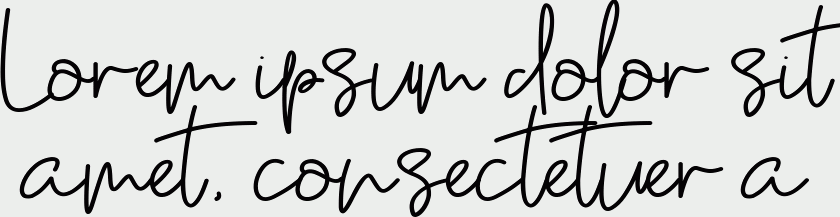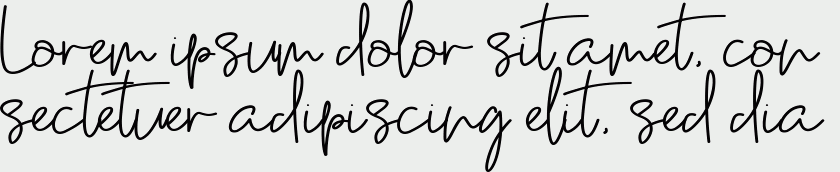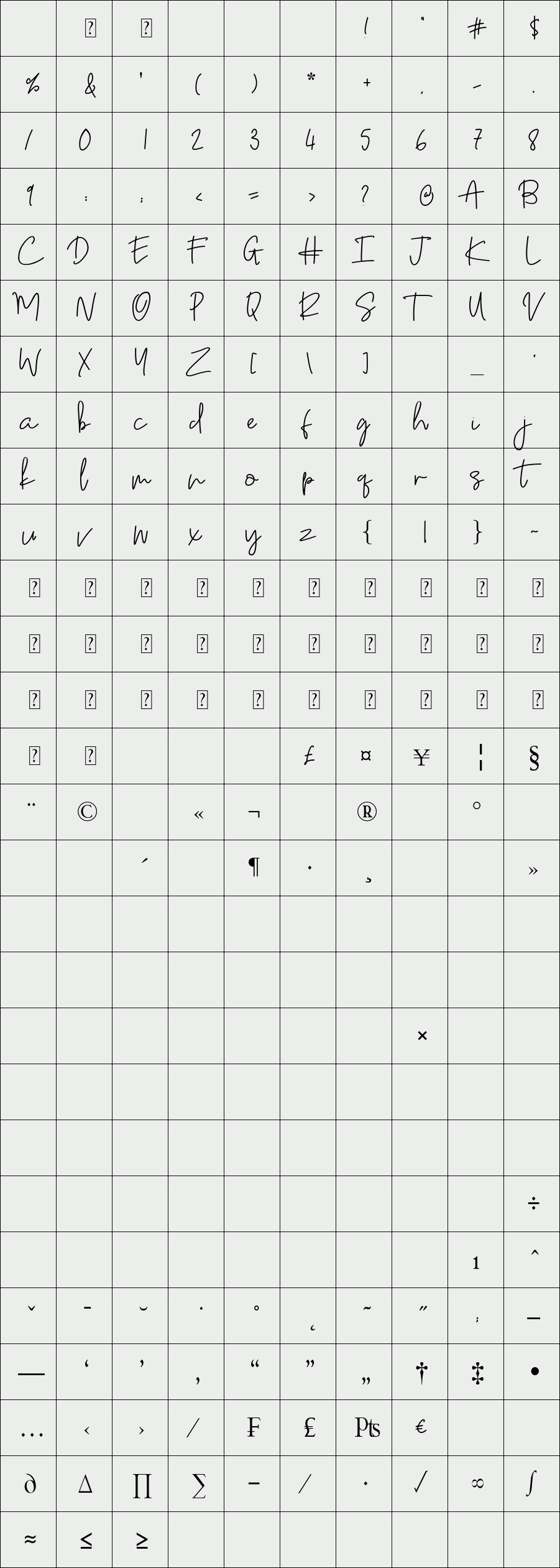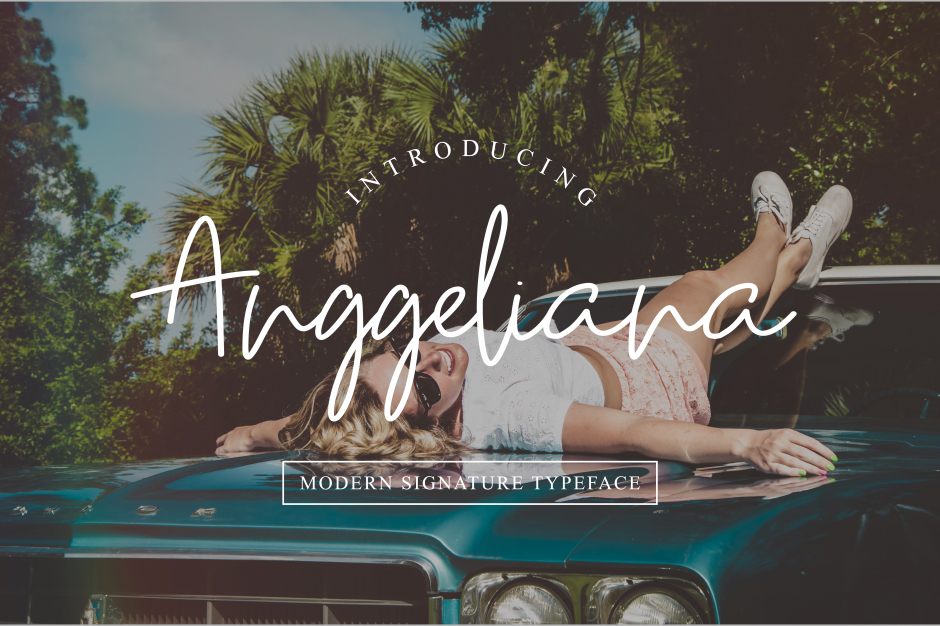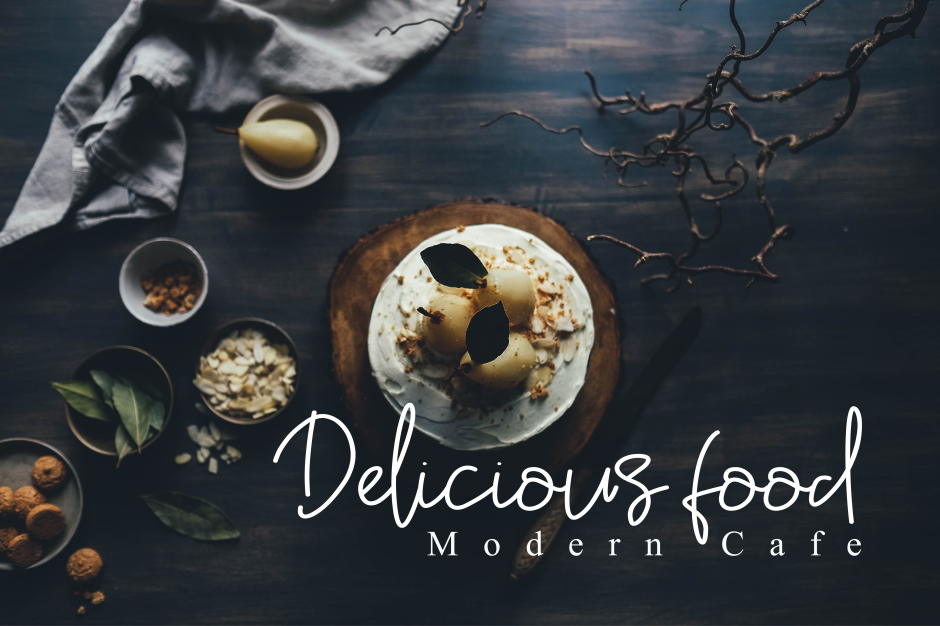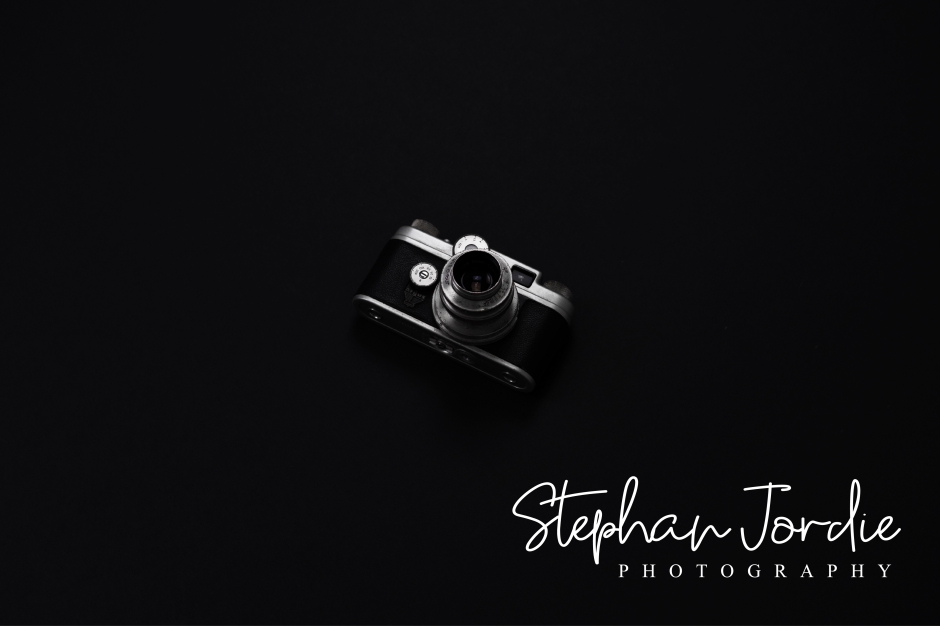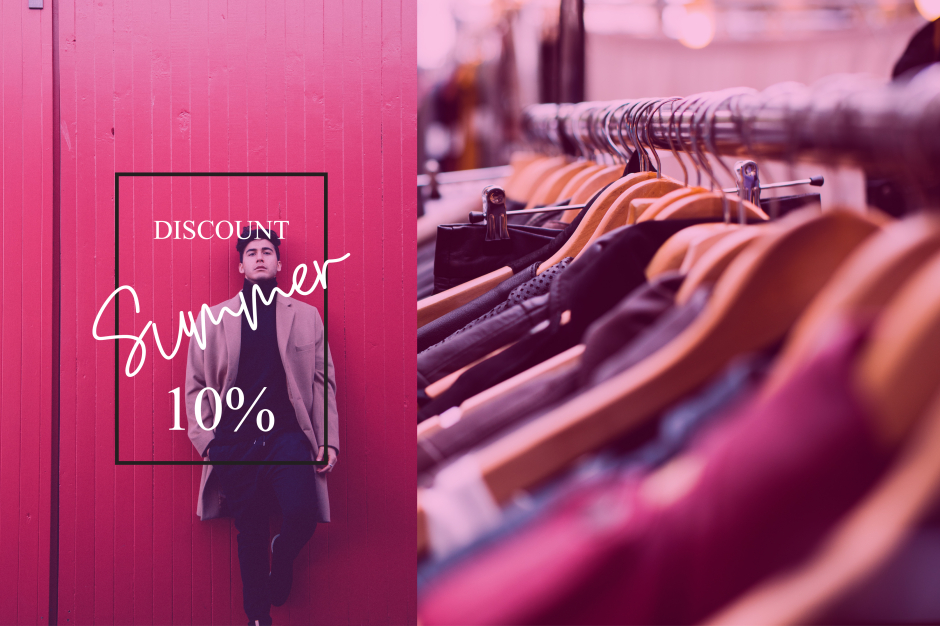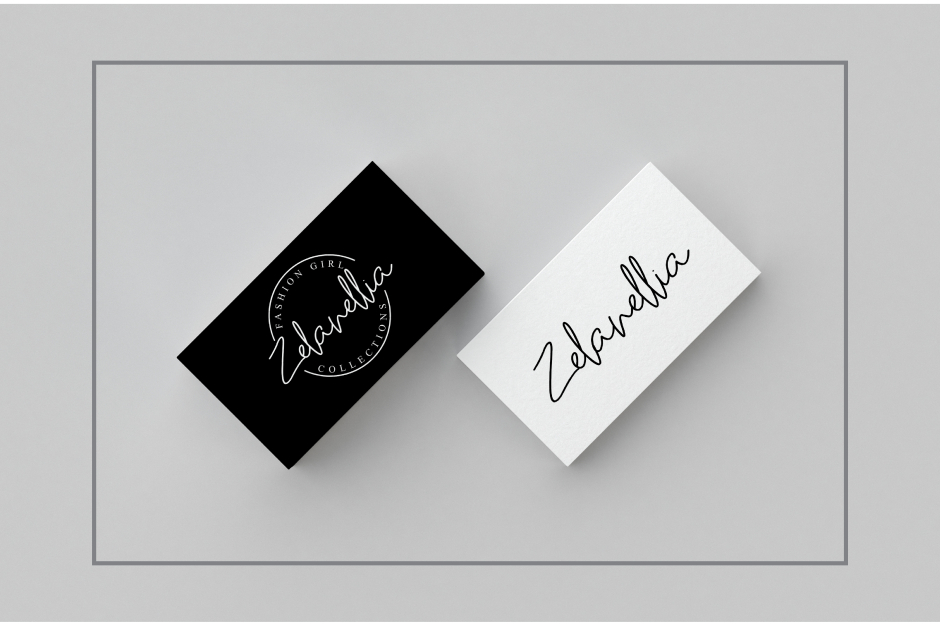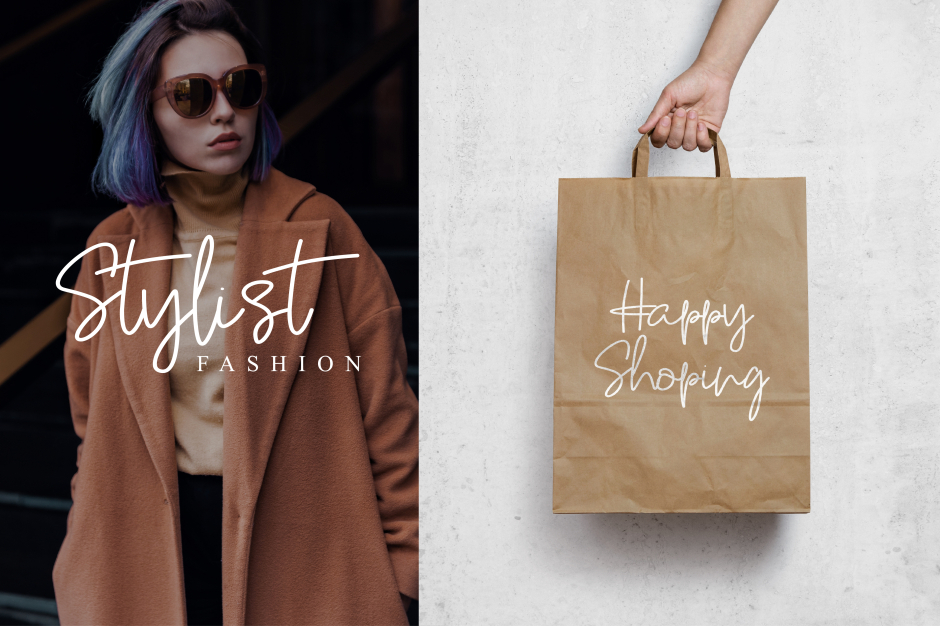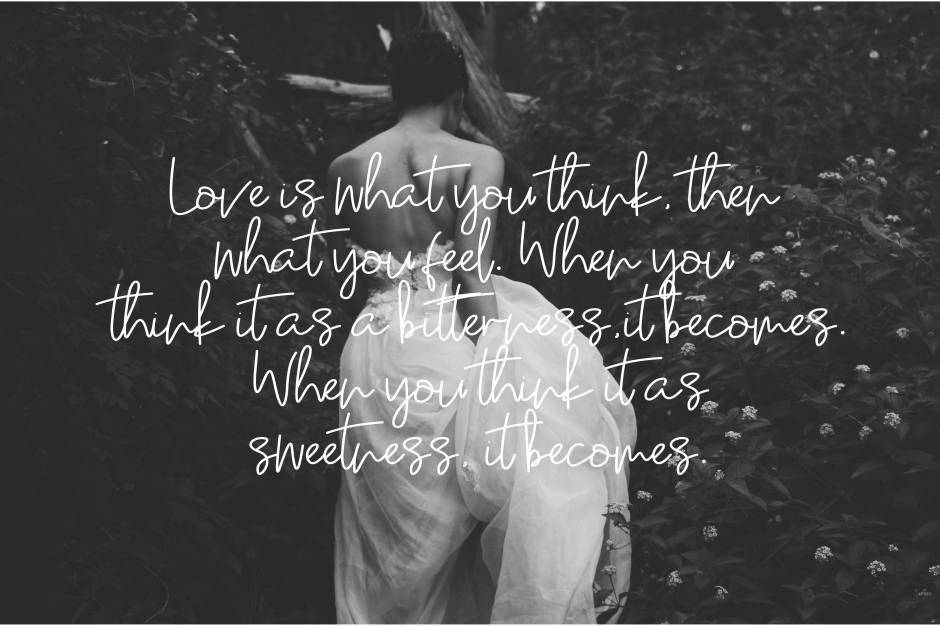
/ Anggeliana Script Font
Introducing the Anggeliana, a stylish handwritten with signature style. This beautiful script font offers your personal touch to your latest art project with elegant, classy and modern look.
Anggeliana offers gorgeous typographic will perfect for many different project such as logos & branding, invitation, stationery, wedding designs, social media posts, advertisements, product packaging, product designs, label, photography, watermark, special events or anything that need handwriting taste.
Designer: fahri rizal